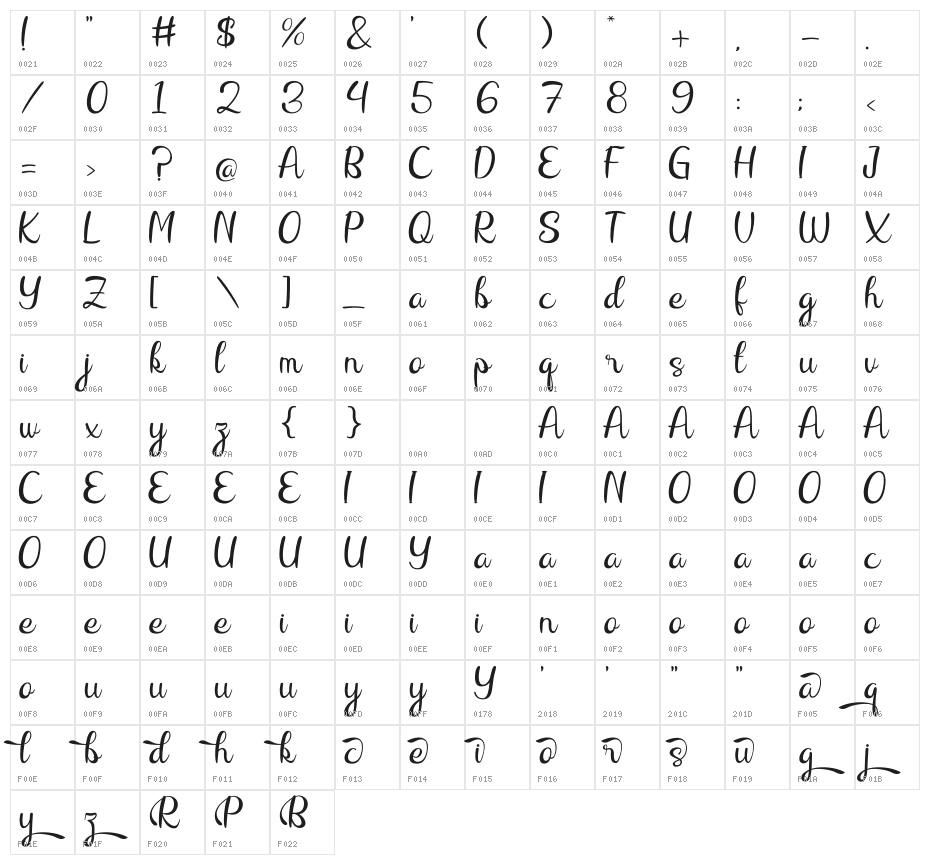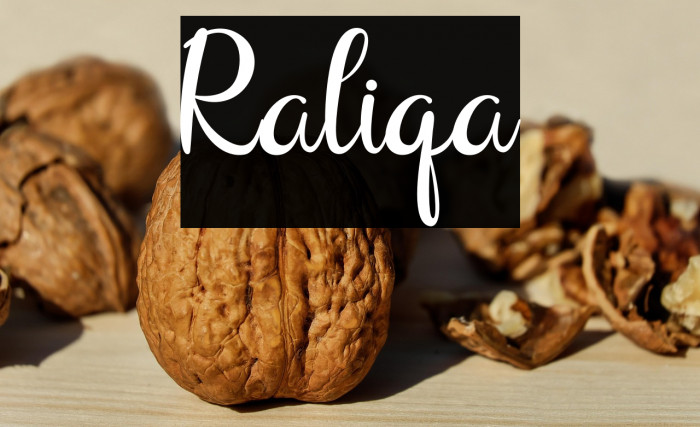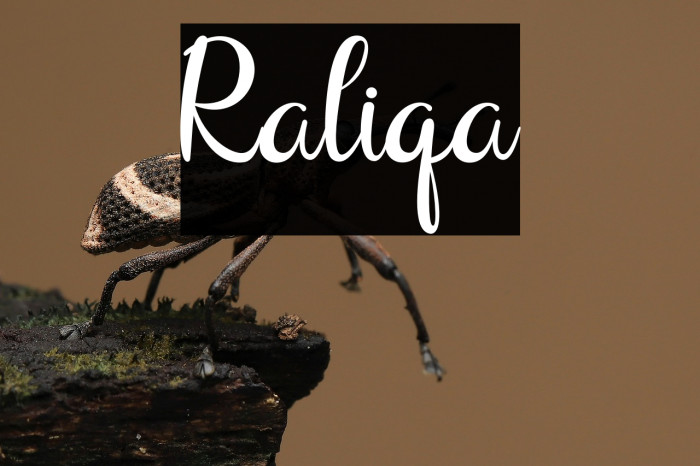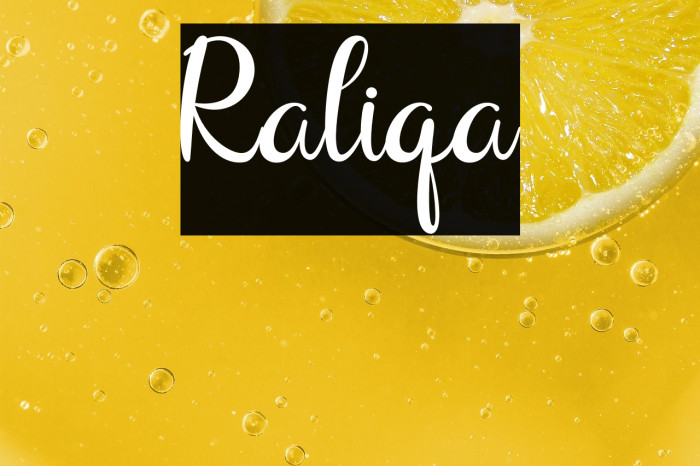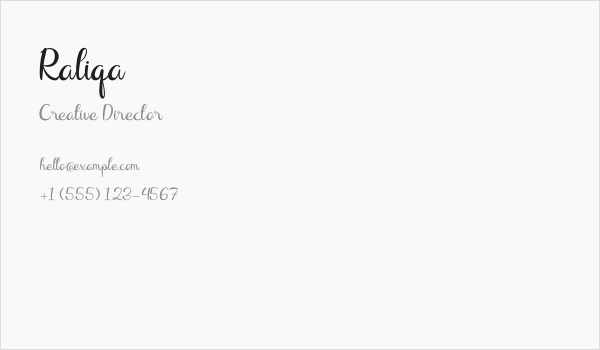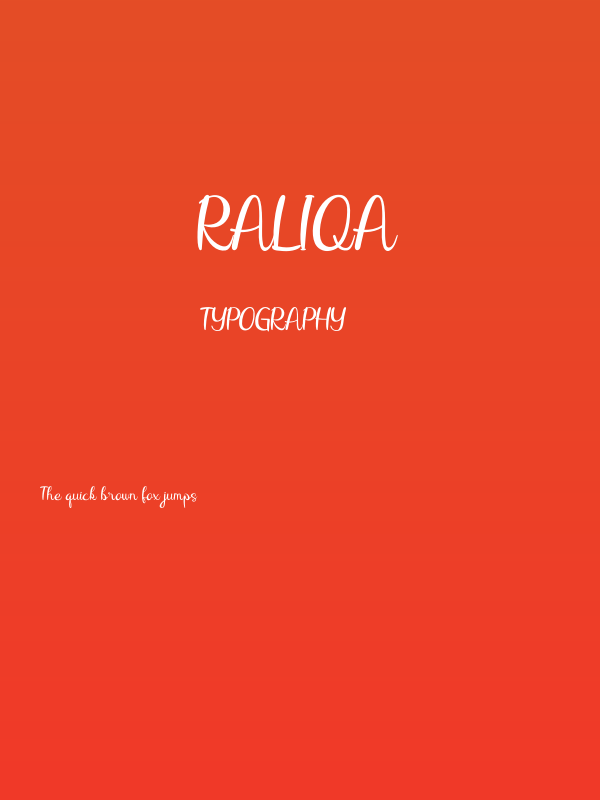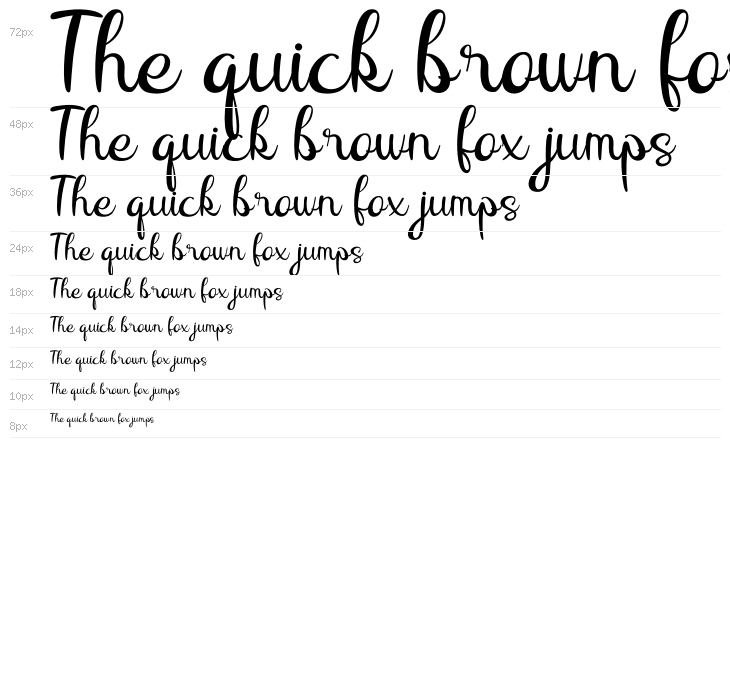
Raliqa Font
Raliqa Description
This font features a playful and fluid script style, characterized by its smooth, flowing curves and connected letterforms. The uppercase letters maintain a consistent height, while the lowercase letters exhibit a charming looped design, adding a whimsical touch. The numerals are rounded and harmonize well with the overall script aesthetic. Special characters are thoughtfully integrated, maintaining the font's cohesive style. The strokes are moderately thick, providing a balanced contrast that enhances readability while preserving the decorative nature of the script.
| Use Case | Logos, Invitations, Social Media |
| Proposed Projects | Ideal for wedding invitations, greeting cards, branding projects, and social media graphics. |